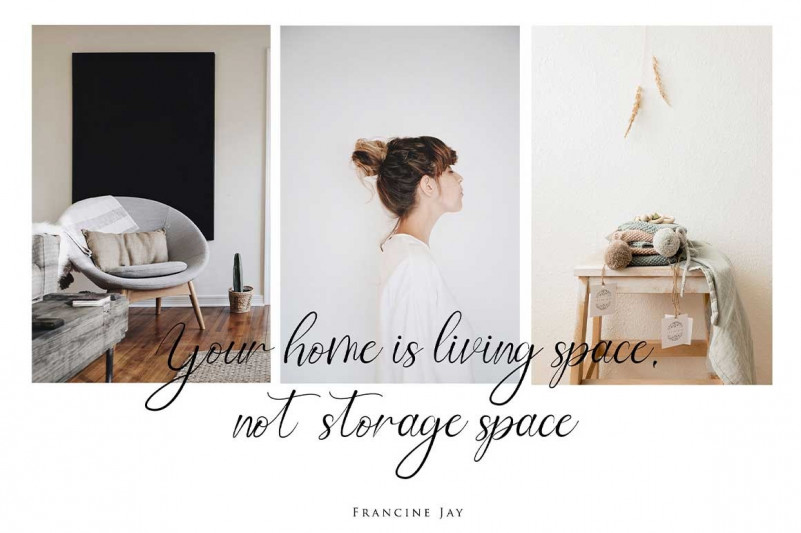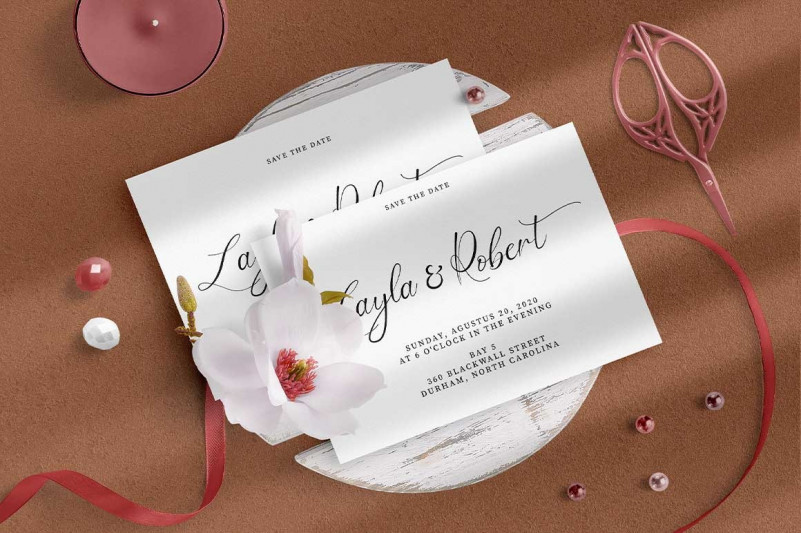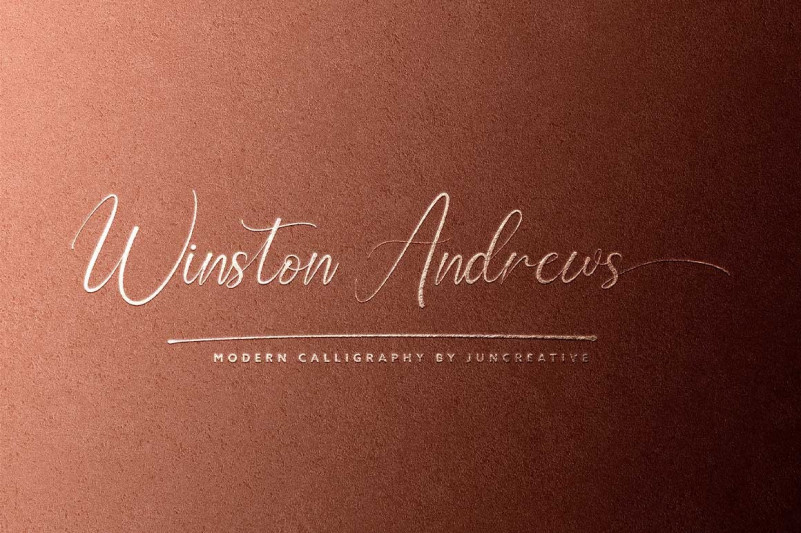
Winston Andrews Calligraphy Font
Winston Andrews includes full set of lovely uppercase and lowercase letters, multilingual symbols, numerals, punctuation and ending lowercase swashes. is perfect fo you up coming projects. such as modern invitation design, branding stationery design, wedding, birthday, etc and any projects.